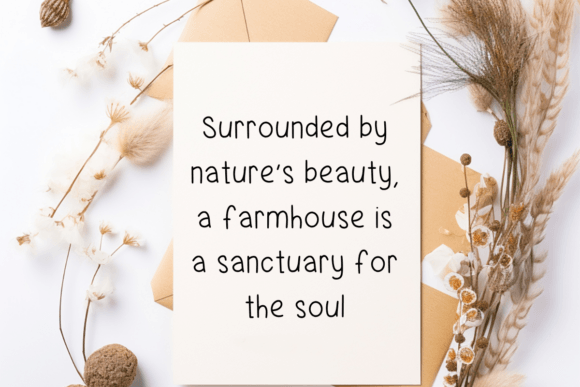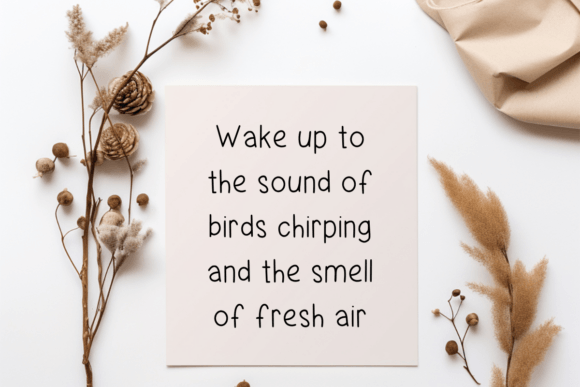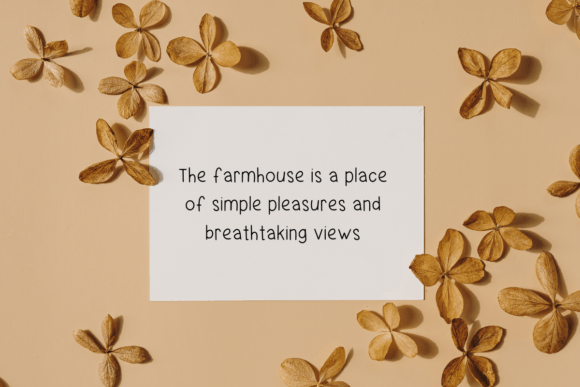
Unlock Endless Creativity with Farmhouse: A Cheerful Christmas-Themed Font
Are you tired of using the same old fonts for your creative projects? Look no further than Farmhouse, a delightful Christmas-themed sans serif font that’s perfect for designers, crafters, and educators alike. With its cheerful and festive vibe, Farmhouse is sure to bring a touch of holiday magic to your work, no matter the time of year.
Perfect for Kindle Direct Publishing
For authors and publishers using Kindle Direct Publishing (KDP), Farmhouse is an ideal choice for creating eye-catching journals, notes, and teaching materials. This captivating font has the power to transform your publications into delightful masterpieces that will captivate your audience. Whether you’re creating a planner, a journal, or a notebook, Farmhouse is sure to make your work stand out from the crowd.
Bring Your Quotes to Life
Are you a poet or writer looking for a font that will bring your poignant quotes to life? Farmhouse is the perfect solution. Its unique and playful design adds a touch of whimsy to your words, making them more engaging and shareable. Imagine being able to convey your message with a font that’s both festive and fun – Farmhouse makes it possible.
Add a Breath of Fresh Air to Your Scrapbooks
Scrapbooking is an art form that requires creativity and attention to detail. With Farmhouse, you can add a breath of fresh air to your scrapbooks and make them truly unforgettable. This font is perfect for journaling, titling, and adding embellishments to your pages. Its cheerful design will make your memories shine and leave a lasting impression on anyone who sees them.
A Teacher’s Best Friend
Teachers, rejoice! Farmhouse is here to make your teaching materials more engaging and fun. Whether you’re creating worksheets, lesson plans, or classroom decorations, this font is sure to delight your students. Its playful design will add a touch of excitement to your work, making learning more enjoyable for everyone involved.
Say Goodbye to Dull Memos
Memos don’t have to be boring, and with Farmhouse, they won’t be. This font is perfect for creating eye-catching memos that will grab the attention of your colleagues, students, or clients. Imagine being able to convey important information in a fun and engaging way – Farmhouse makes it possible.
Farmhouse is more than just a font – it’s a key to unlocking endless creative possibilities. Whether you’re crafting personalized greeting cards, designing innovative planners, or creating unique gifts, this font is sure to inspire you. Its versatility and playfulness make it perfect for a wide range of projects, from digital to print.
Experience the Joy of Christmas All Year Round
Who says Christmas only comes once a year? With Farmhouse, you can experience the joy and magic of the holiday season all year round. This font is perfect for creating festive and fun projects that will bring a smile to anyone’s face. Imagine being able to add a touch of Christmas cheer to your work, no matter the time of year – Farmhouse makes it possible.
Make Your Projects Truly Unique
In a world where creativity and individuality are valued, Farmhouse is the perfect tool for making your projects truly unique. This font is designed to help you stand out from the crowd and express your personality. Whether you’re a designer, crafter, or educator, Farmhouse is sure to inspire you to create something truly special.
In conclusion, Farmhouse is a cheerful Christmas-themed font that’s perfect for designers, crafters, and educators alike. Its playful and festive design makes it ideal for a wide range of projects, from Kindle Direct Publishing to scrapbooking and beyond. With Farmhouse, you can unlock endless creative possibilities and make your projects truly unique. So why wait? Experience the joy of Christmas all year round with Farmhouse and discover a world of creative possibilities.